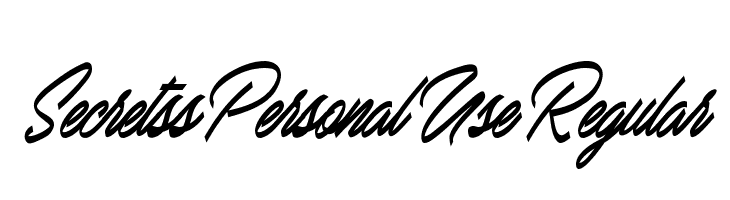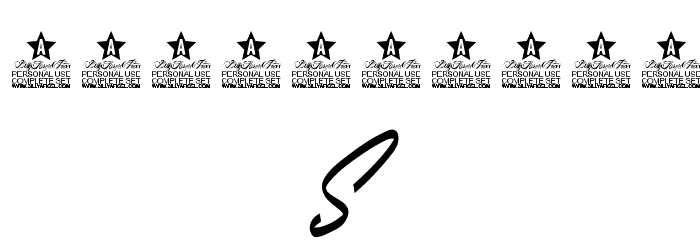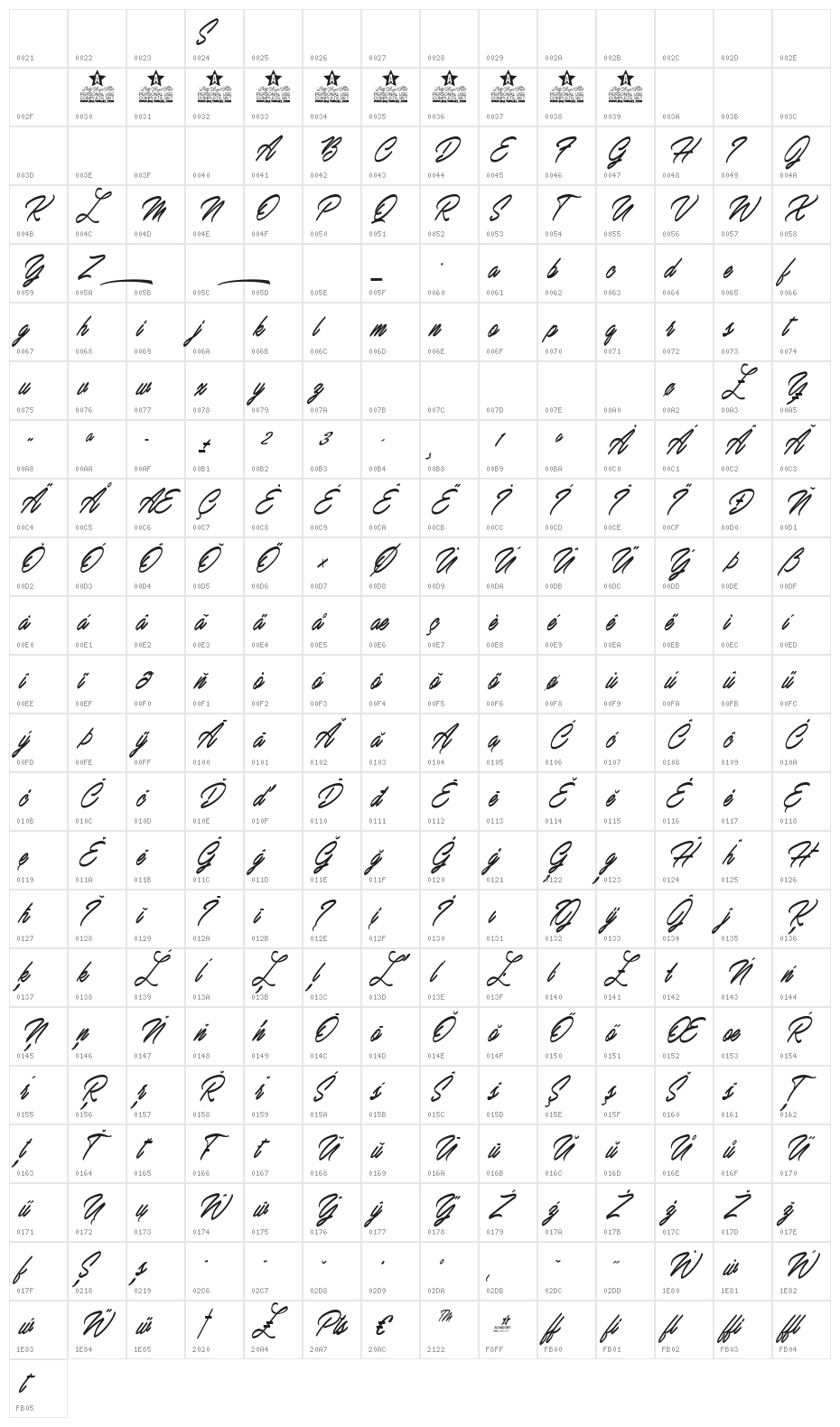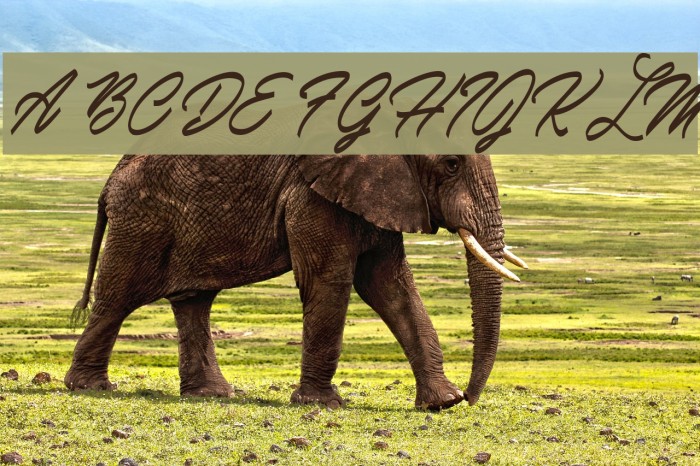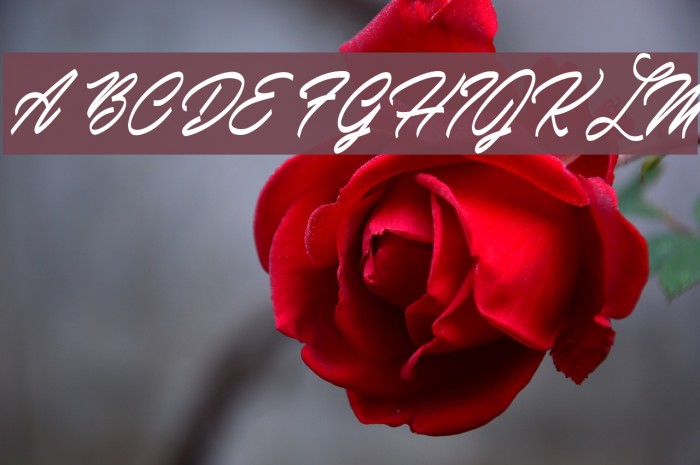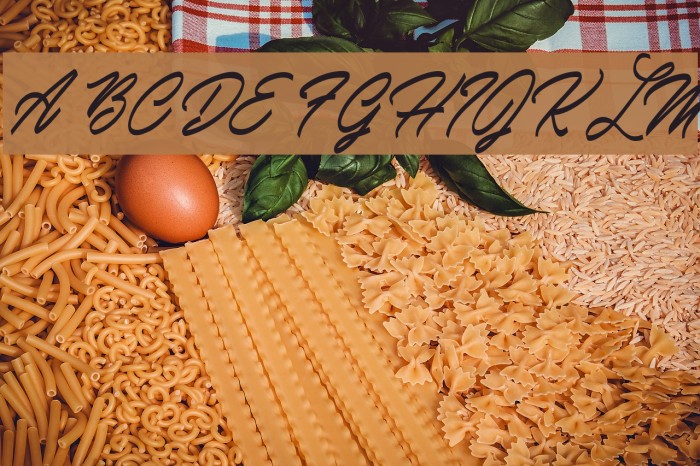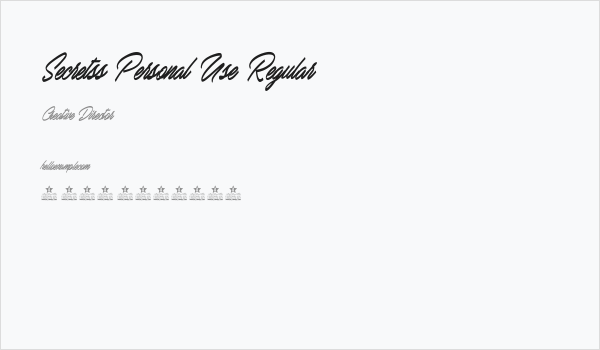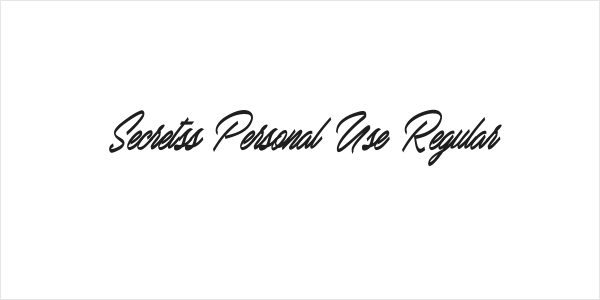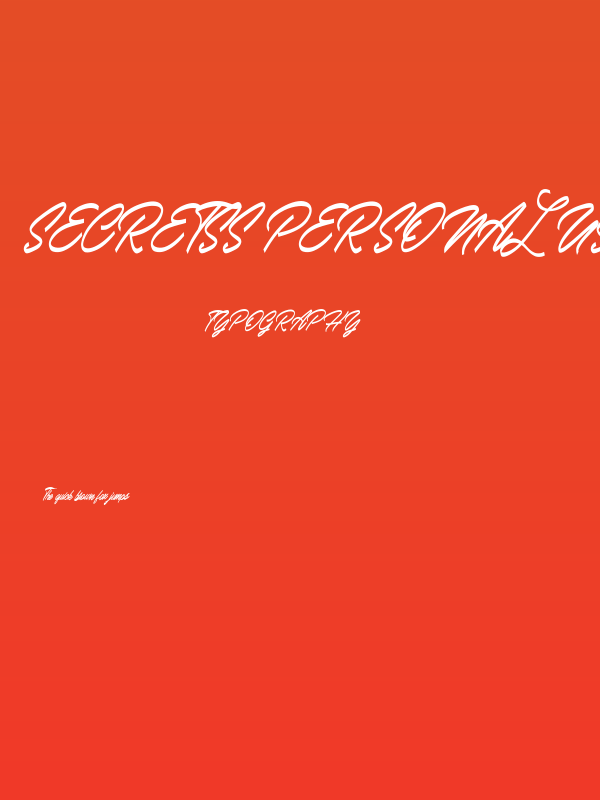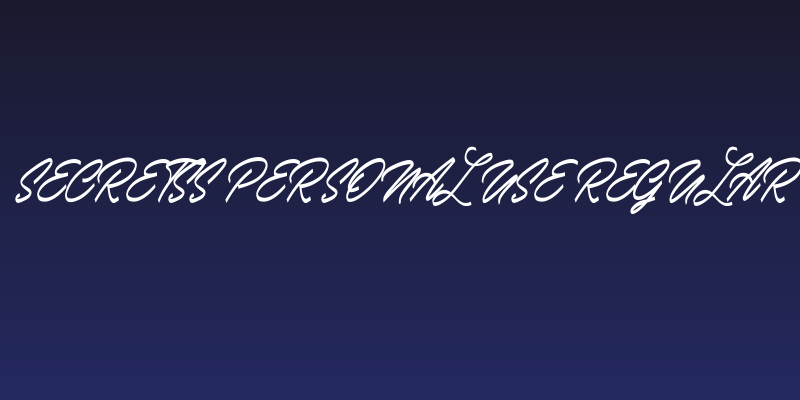
Secretss Personal Use Regular Font
Secretss Personal Use Regular Description
This font features a flowing, cursive style with elegant, sweeping strokes that give it a handwritten appearance. The uppercase letters are particularly ornate, with exaggerated loops and flourishes that add a sense of sophistication and flair. The lowercase letters maintain a consistent style, with smooth connections between characters, enhancing the script's fluidity. The numerals and special characters are designed to match the overall aesthetic, ensuring a cohesive look across all text. This font's design is both stylish and legible, making it suitable for various decorative purposes.